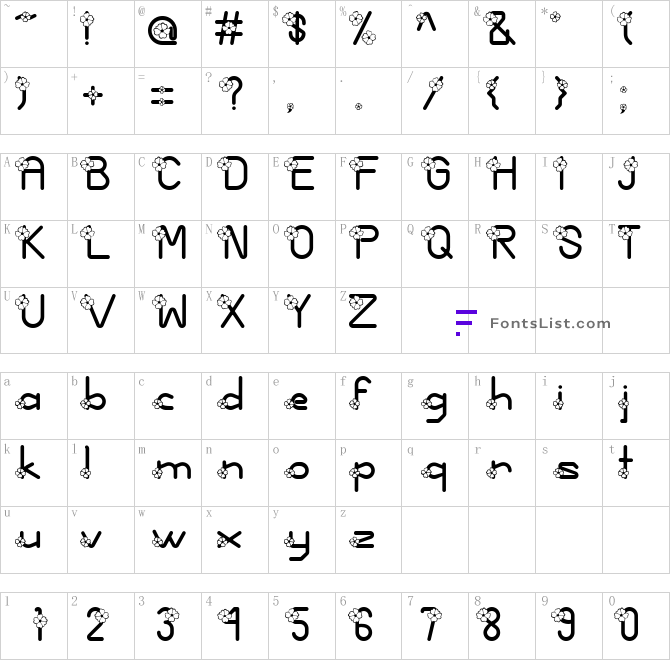
- Font Name:AC3-Wildflower
- Full Name:AC3 Wildflower
AC3-Wildflower.ttf is a very beautiful artistic font, AC3-Wildflower.ttf is widely used in the design and printing of various books and pictures,AC3-Wildflower.ttf has a strong visual impact,AC3-Wildflower.ttf is a commonly used font in newspapers, magazines and books, and is used in posters, e-commerce Poster design, store design, logo design, font design and other fields.AC3-Wildflower.